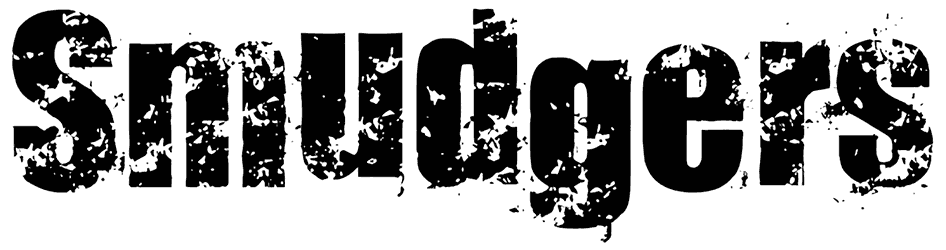
Smudgers Font
Meet Smudgers, a destroy font with bold and striking letters. The faded parts on plain letters and the colors spread around them will give a unique look to this font that can convey the feeling of being handmade and time…
Meet Smudgers, a destroy font with bold and striking letters. The faded parts on plain letters and the colors spread around them will give a unique look to this font that can convey the feeling of being handmade and time-worn. Smudgers can be used for displaying various texts such as logos, flyers, game designs, apparel, and more.